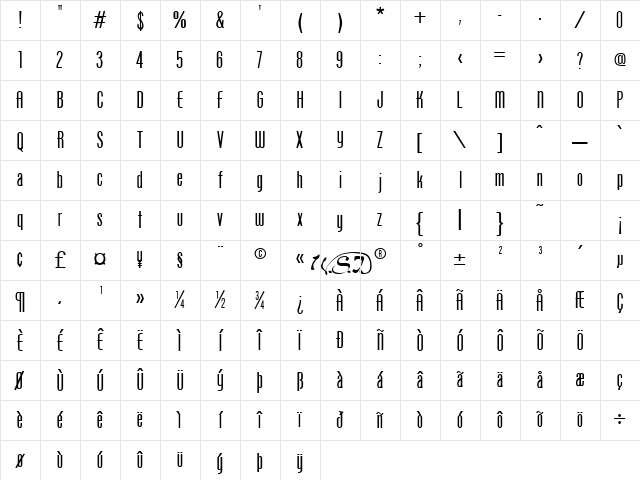
Protege Regular Free Font
Protege Regular
Protege Regular Family
Design Context for Protege
Protege is a composed and adaptable typeface that performs quietly and consistently across a wide range of design contexts.